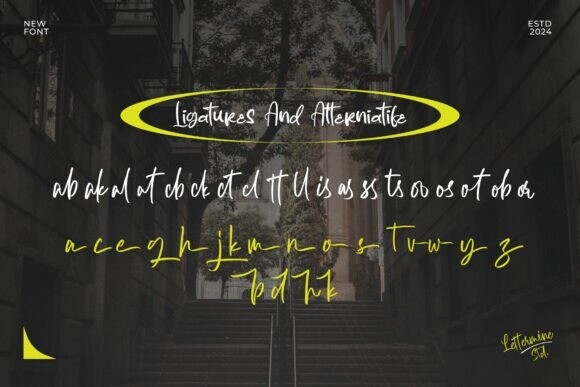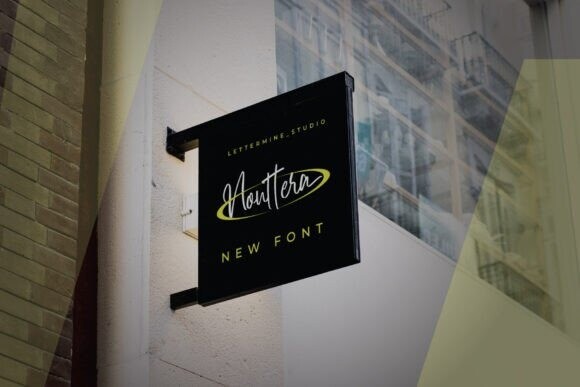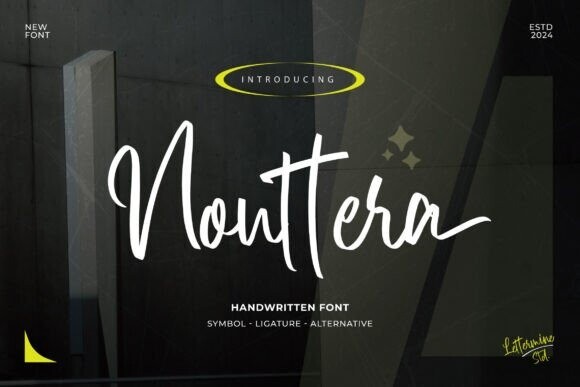
Nouttera Font
Designer: Lettermine
Nouttera Font is a captivating brush script handwritten font that exudes creativity and passion in every stroke. Each letter carries an authentic, hand-drawn charm, adding a dynamic and personal touch to your designs. With its bold yet graceful curves, Nouttera creates an engaging and expressive atmosphere, perfect for leaving a lasting impression.